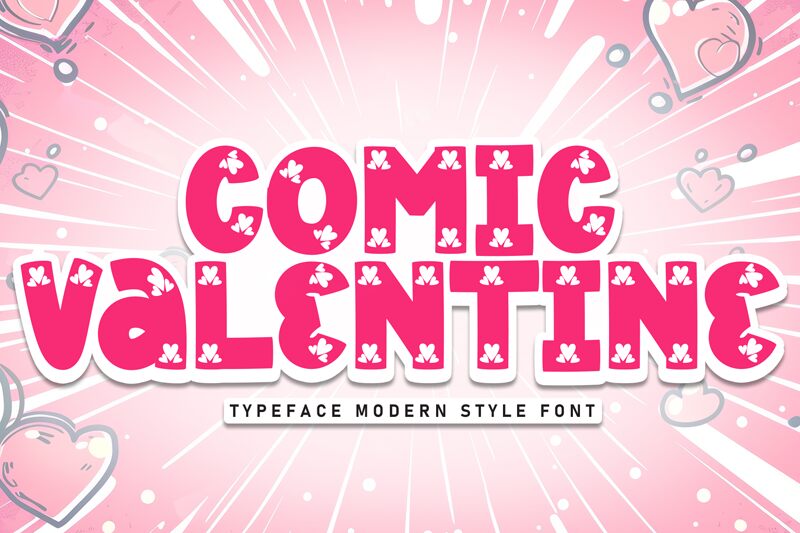
Comic Valentine font designed by Andi Moz is a holiday font inspired by one of the most famous romantic occasions; valentine’s day. It is a free font perfect for personal use and for eye-catching green and red Christmas projects. Character uniformity is portrayed in its inner details while decorative elements are added to give this font its playful and quirky appearance.
The energetic and whimsical aspect of this font is also brought to life by several different elements and details that engage viewers. They’ll always be on the lookout for something new! This font is perfectly themed for greeting cards, coupon and voucher offers, postcards, etc. Try for quotes, bullet journals, posters, and more!
This is a sweet and friendly handwritten display font. Cute and fun, this font is perfect for writing wedding invitations, cards, or any design that needs a playful touch.